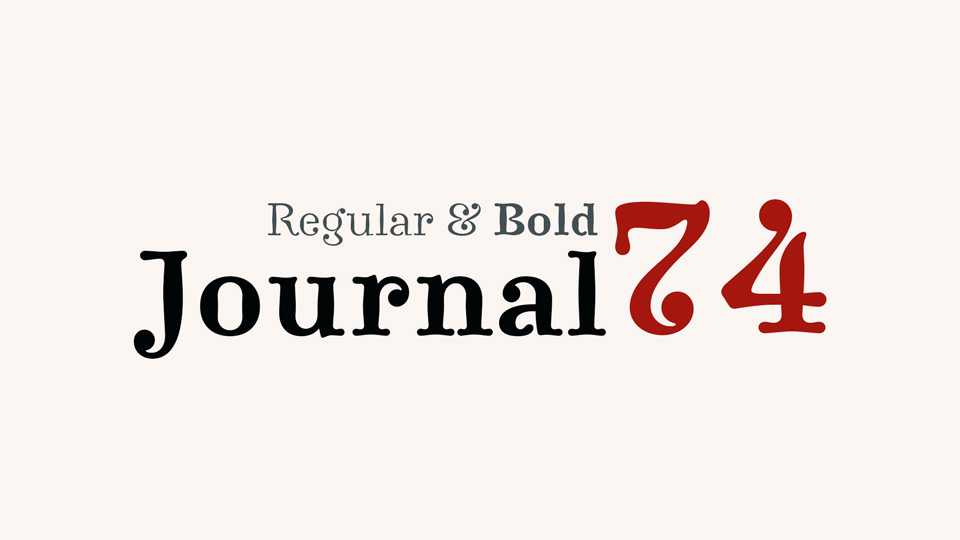
Download Journal74 typeface, a fancy retro looking headline serif font family with roots in early 70s. Its rounded shapes and drop endings shows a kind of loose feeling for individual and expressive typographic artwork.
Designer: Frank Baranowski